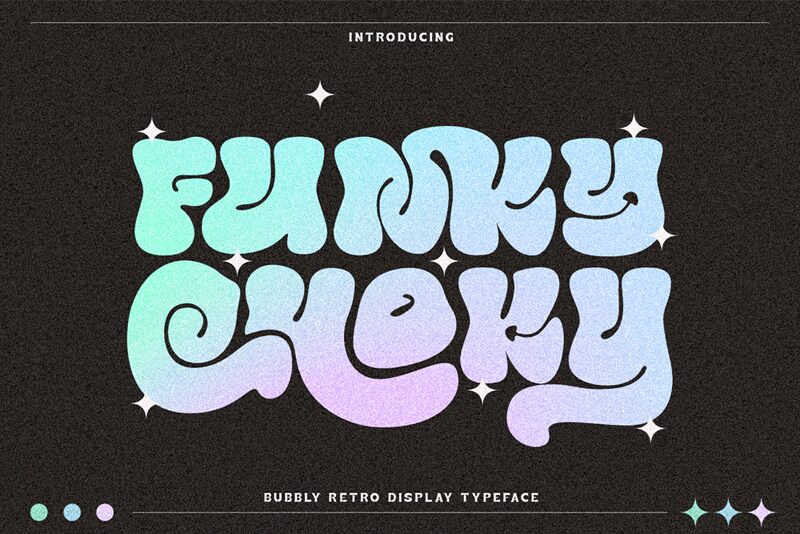
Funky Choky Regular
Funky Choky, designed by Alit Design, is a display font that bursts with a playful and groovy spirit. Its bold weight and rounded, exaggerated letterforms give it a delightful retro vibe, reminiscent of classic 70s pop art. The funky and dynamic curves carry an energetic personality that grabs attention instantly.
Ideal for posters, album covers, branding projects, or any design seeking to evoke fun and nostalgia, Funky Choky stands out effortlessly. Its distinctive style ensures your text is not just read but remembered. Let Funky Choky's vibrant charm add an element of lively creativity to your next project!